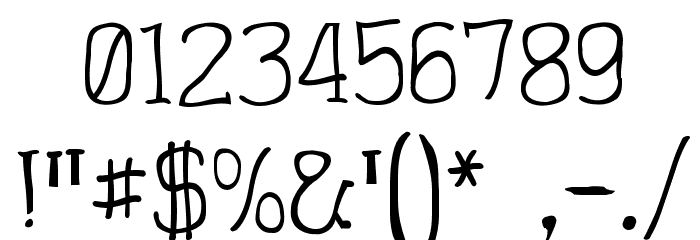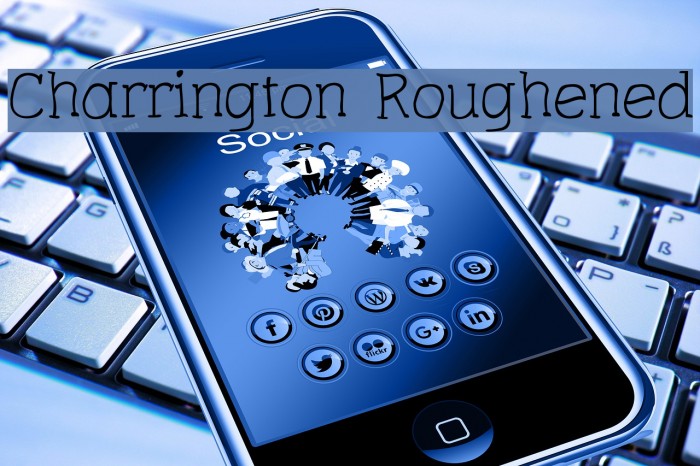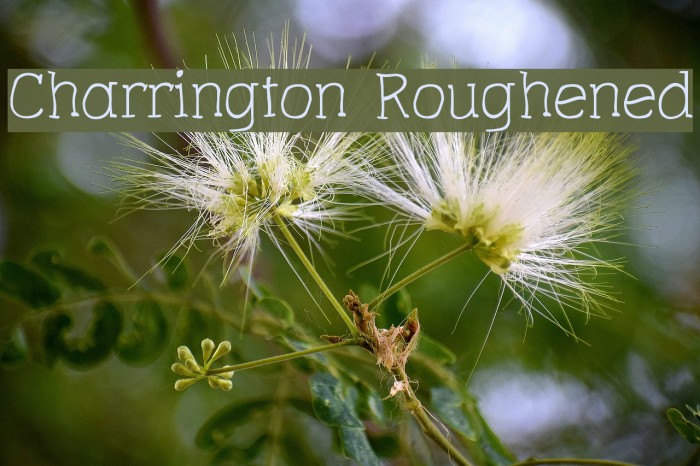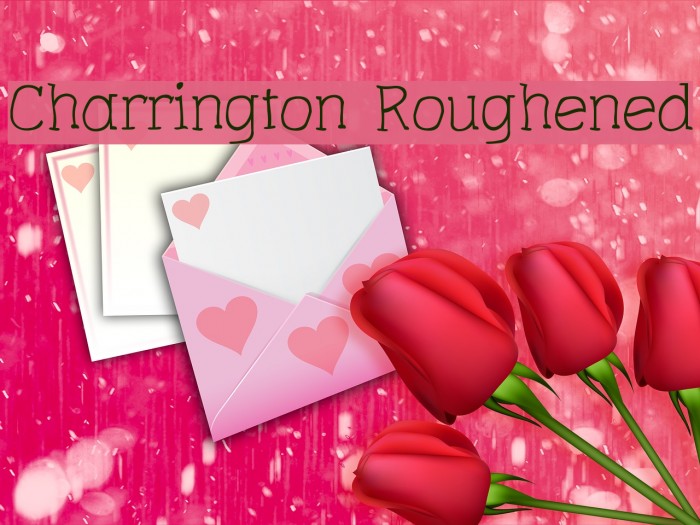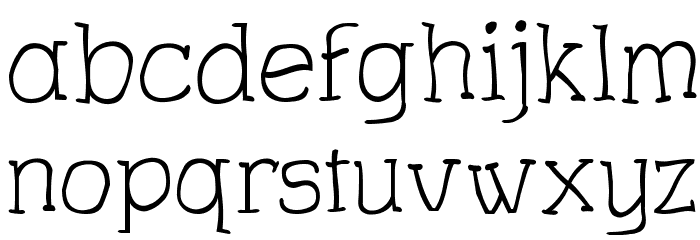
Charrington Roughened Font
This font features a playful and slightly roughened appearance, giving it a hand-drawn, whimsical feel. The characters are irregular with a casual, informal style, making it suitable for creative projects. The uppercase letters are bold and prominent, while the lowercase letters maintain a consistent flow with slight variations in stroke width. The numerals are clear and distinct, matching the overall quirky aesthetic. Special characters are well-integrated, adding to the font's versatility. The overall design is approachable and friendly, ideal for projects that require a touch of personality.
A playful, hand-drawn font with a whimsical and roughened style.
• Proposed Projects: Ideal for children's books, greeting cards, playful branding, and creative posters.
• Category: Handwritten
• Contrast: Medium
• Overall Style: Decorative
• Use Case: Headlines, Logos, Creative projects